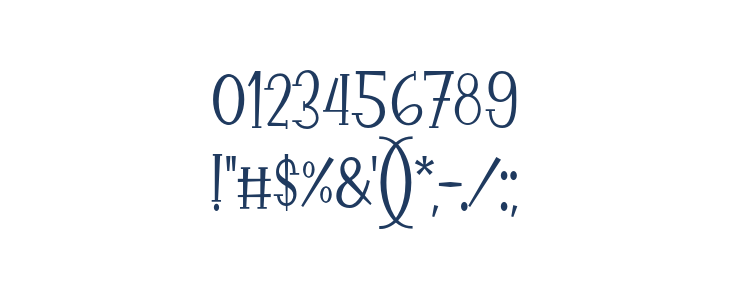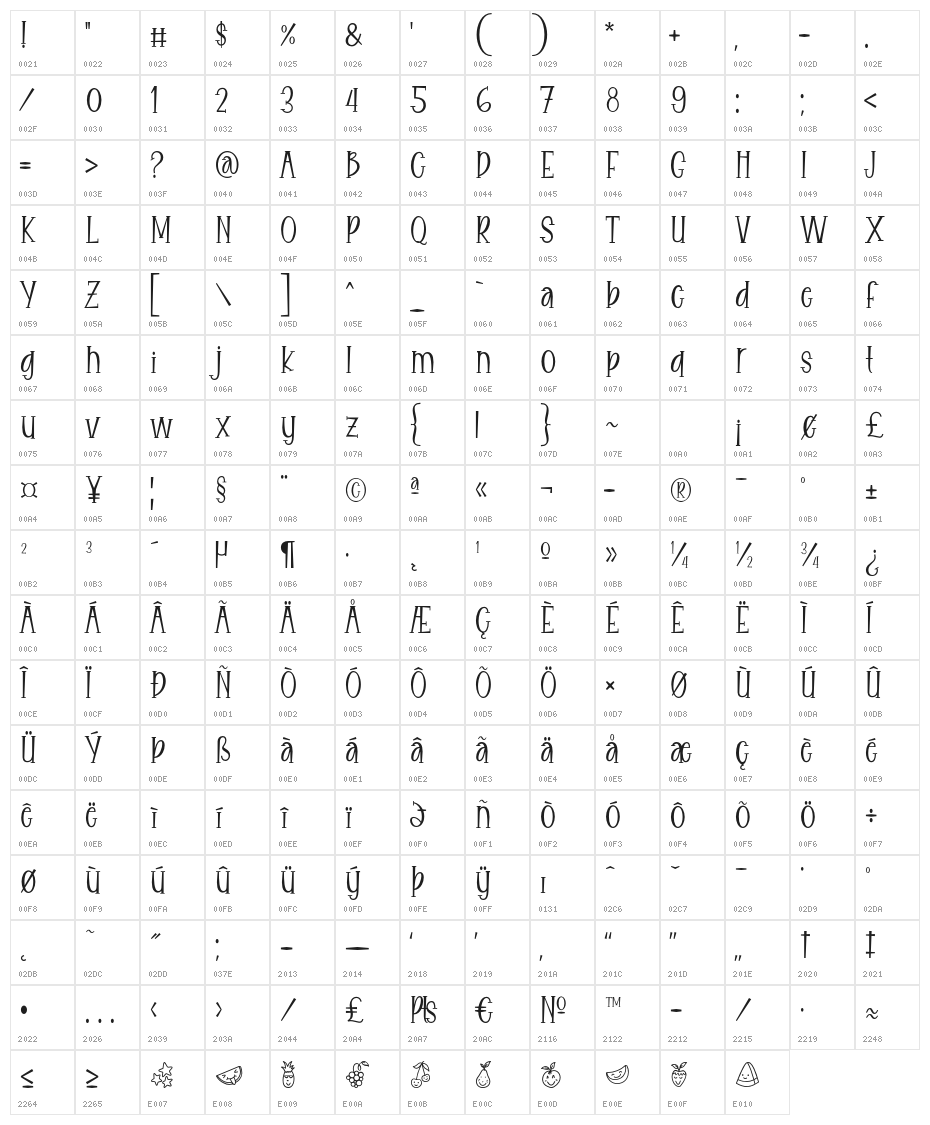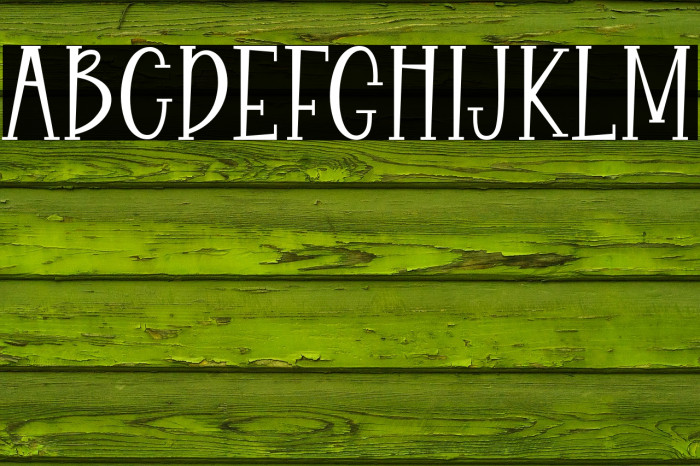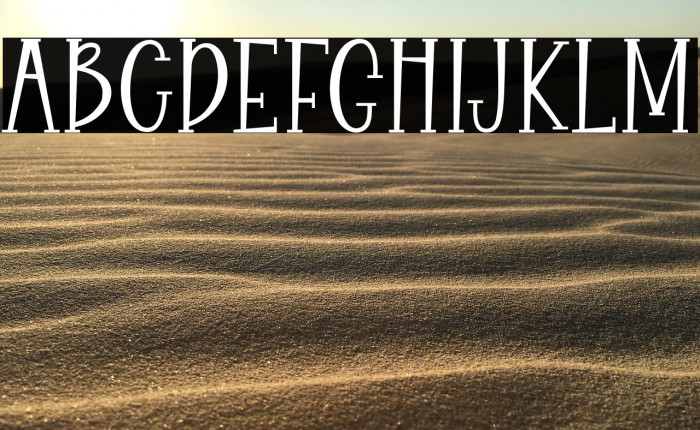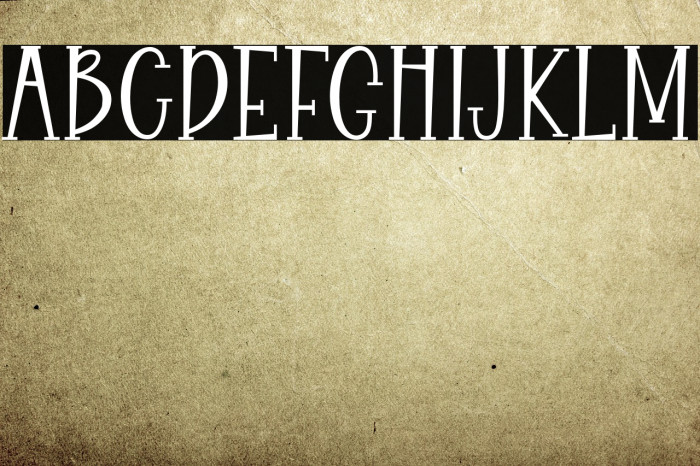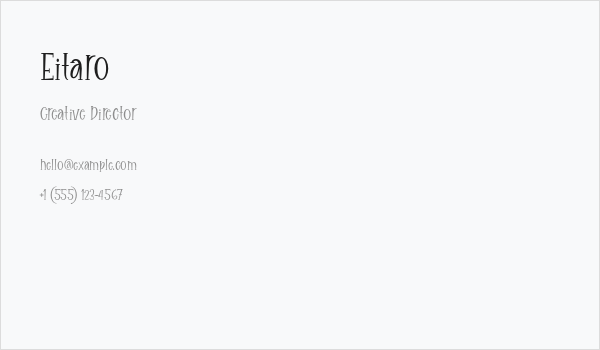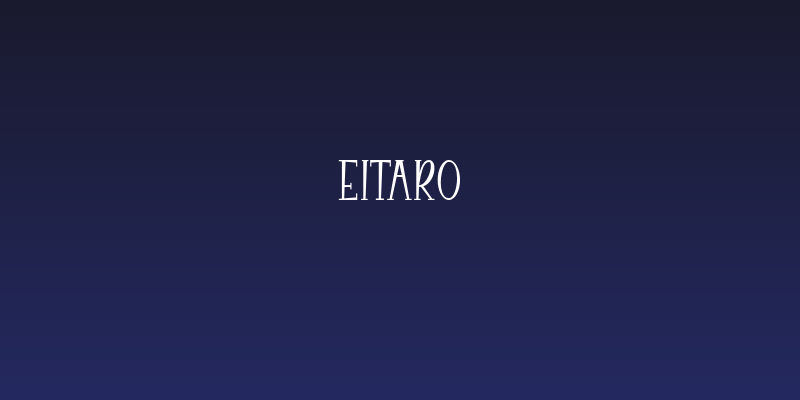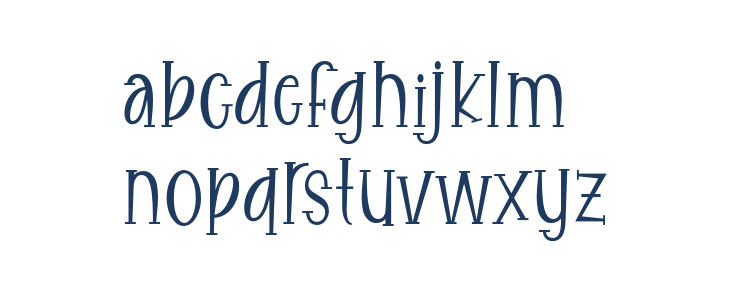
Eitaro Font
Eitaro Description
This font features a playful and whimsical design, characterized by its tall, narrow letterforms and slight slant. The uppercase letters exhibit a unique blend of straight lines and subtle curves, giving them a distinct personality. The lowercase letters maintain a consistent style, with some characters like 'g' and 'y' having playful loops. The numerals are clear and legible, with a slight flair that matches the overall style. Special characters are well-integrated, maintaining the font's quirky aesthetic. This font is ideal for projects that require a touch of creativity and fun, while still being easily readable.
| Overall Style | Whimsical, Playful |
| Use Case | Headlines, Logos, Creative projects |
| Proposed Projects | Ideal for children's books, creative branding, playful invitations, and artistic posters. |